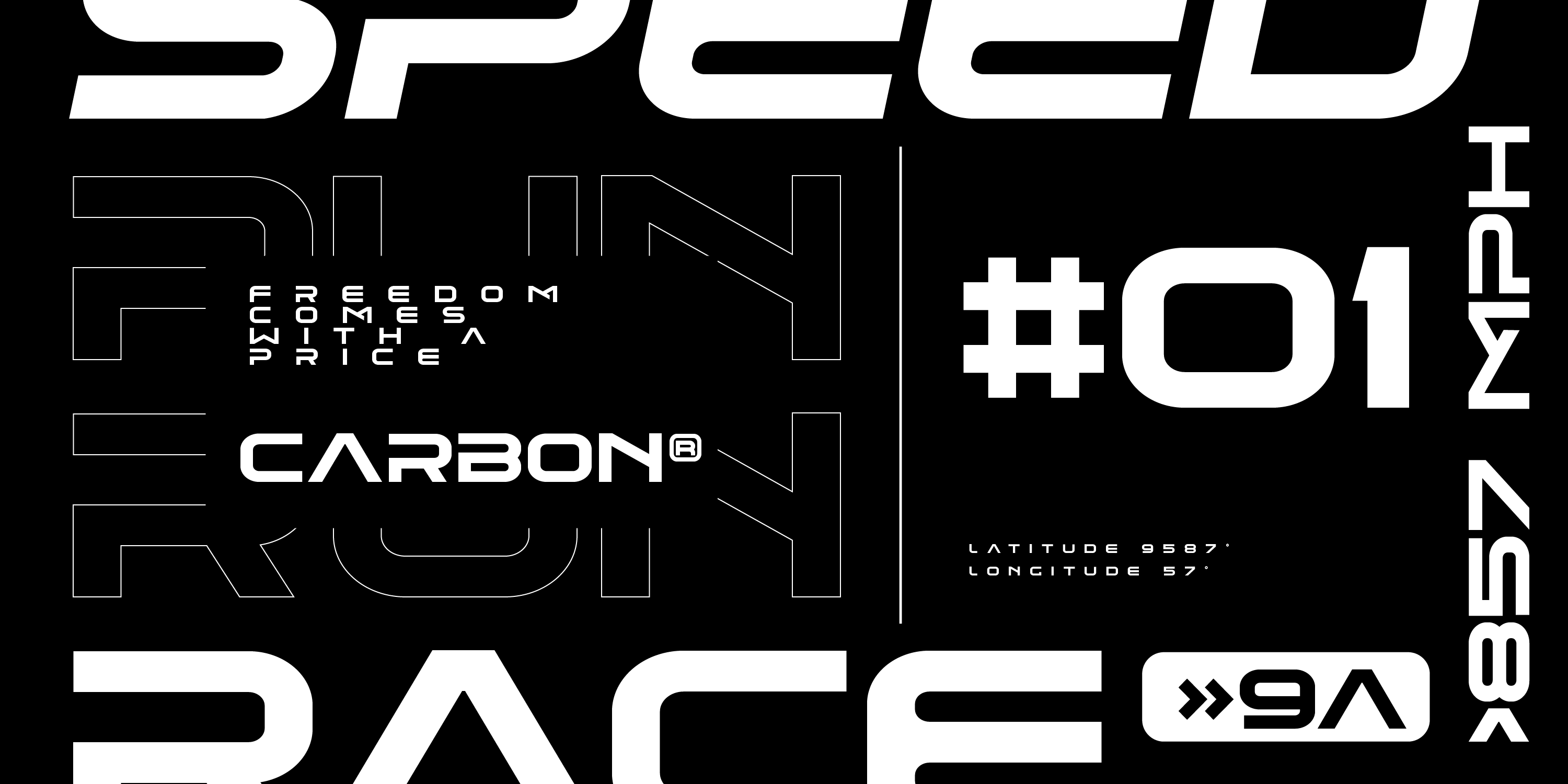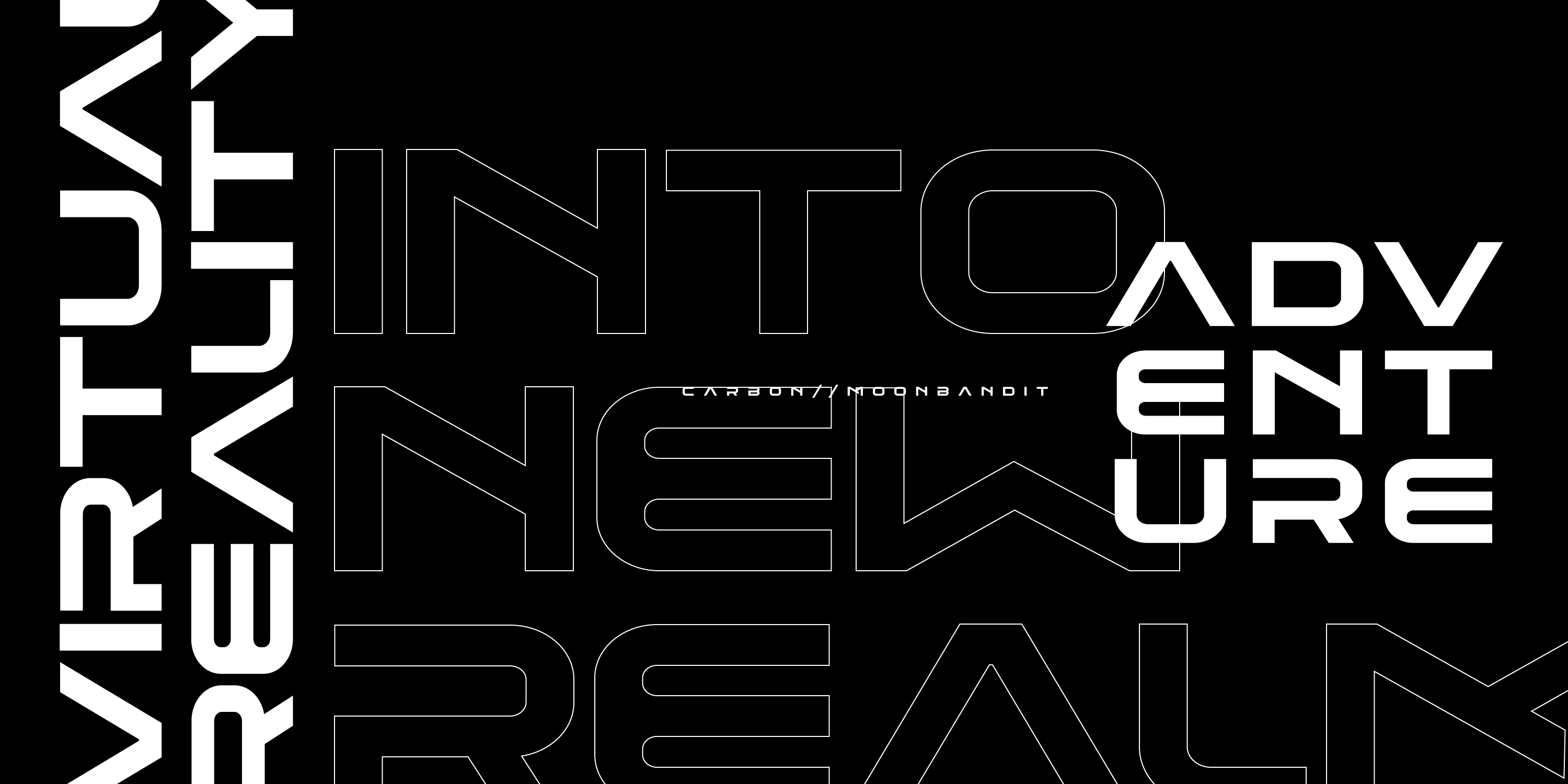
MBF Carbon
The red sports car's engine roar in the middle of the night
Carbon is inspired from the modern racing world. This font is clean, modern, big, bad, and perfect for that edgy theme. Use this typeface for poster, teeshirt, logo, headline, titling and many more.